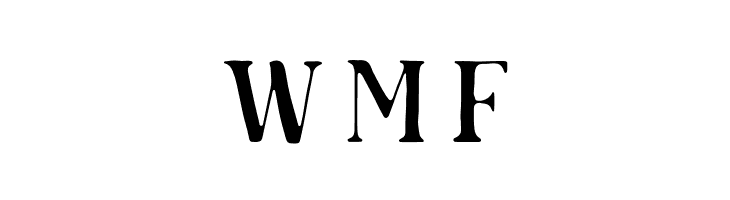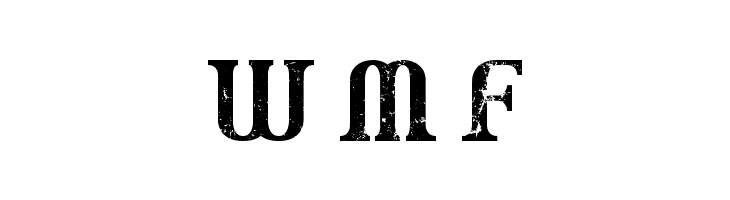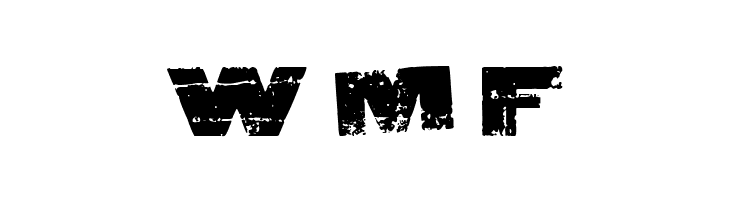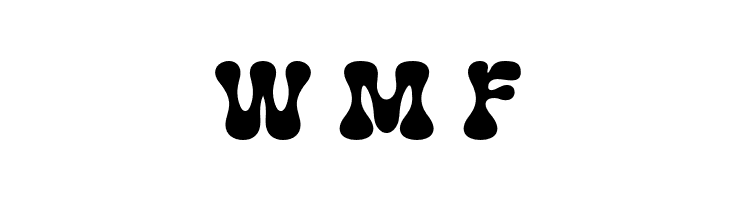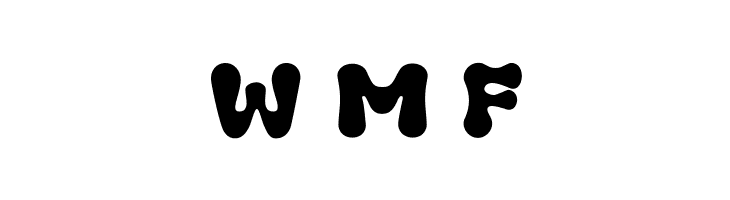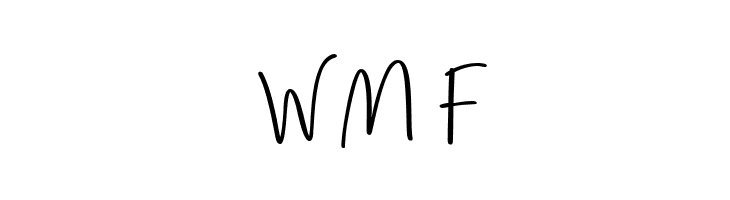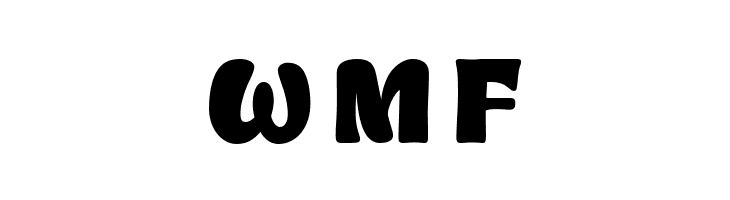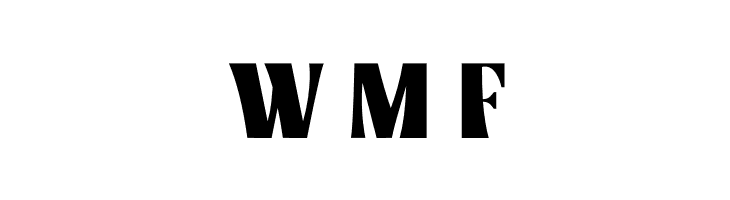
A bold, playful font with whimsical, rounded characters.
A bold, playful font with a retro, bubbly design.
A bold, distressed font with a grunge texture and rugged appearance.
A playful, whimsical serif font with a touch of elegance.
A lively, expressive script font with fluid, dynamic strokes and a natural handwriting feel.
A playful, bold font with rounded, bubbly letterforms and a retro vibe.
A bold, playful font with rounded, bubbly characters and a friendly aesthetic.
A bold, dynamic font with sharp and curved elements for striking visual impact.
A playful, hand-drawn font with rounded edges and a whimsical style.
A bold, grunge-style font with a textured, vintage appearance.